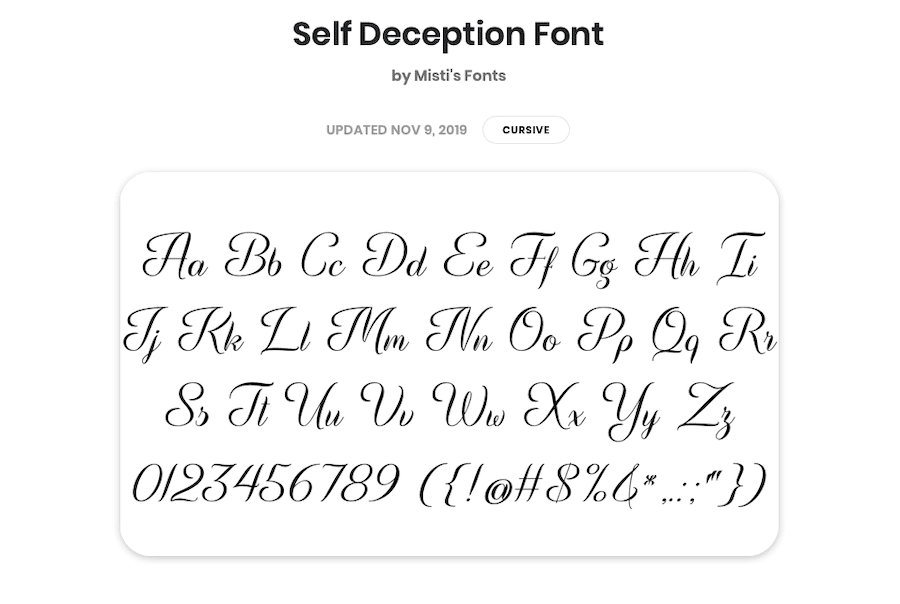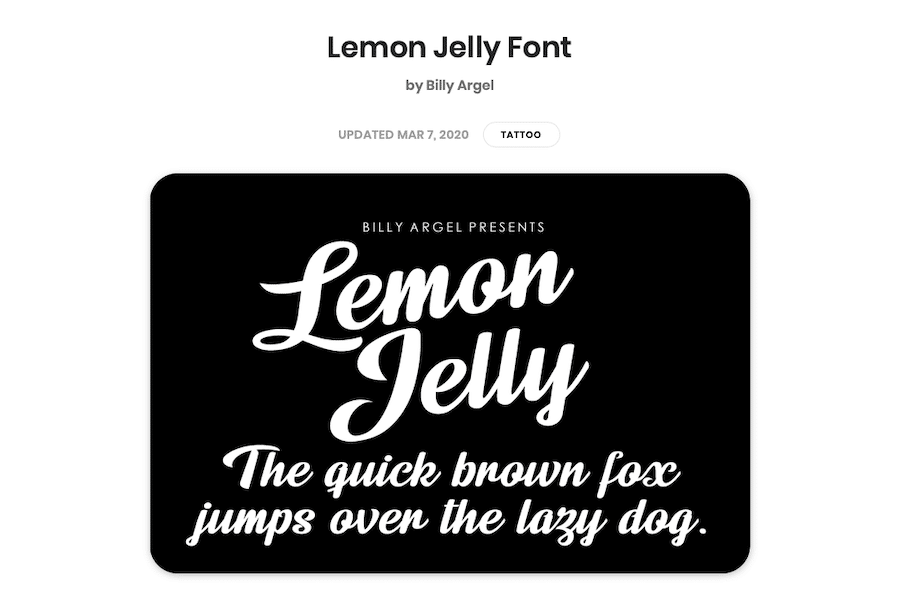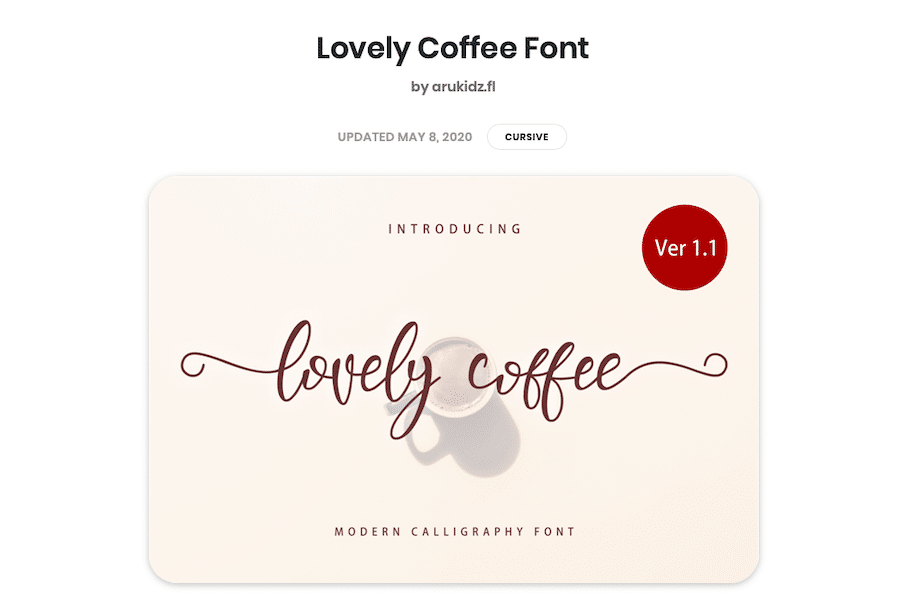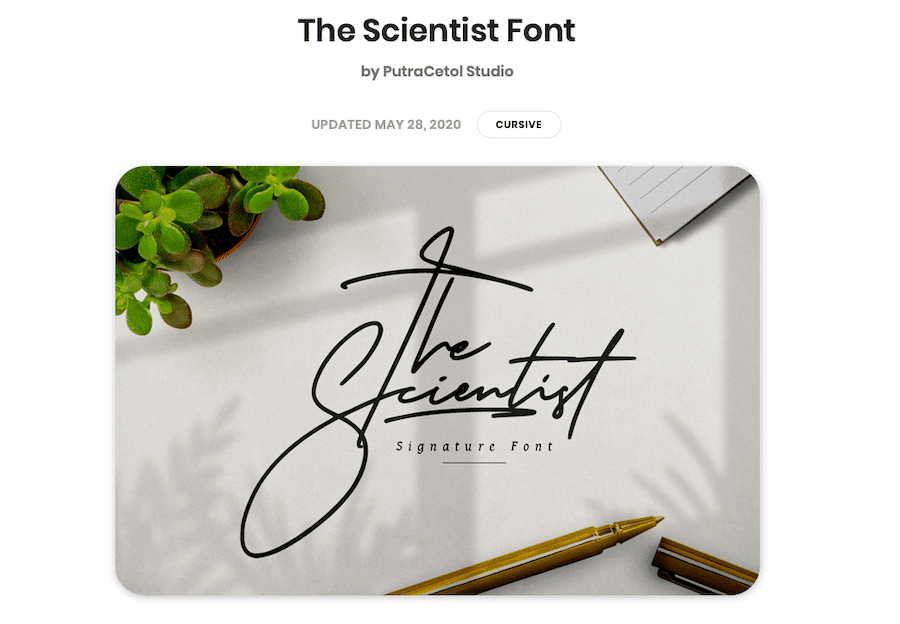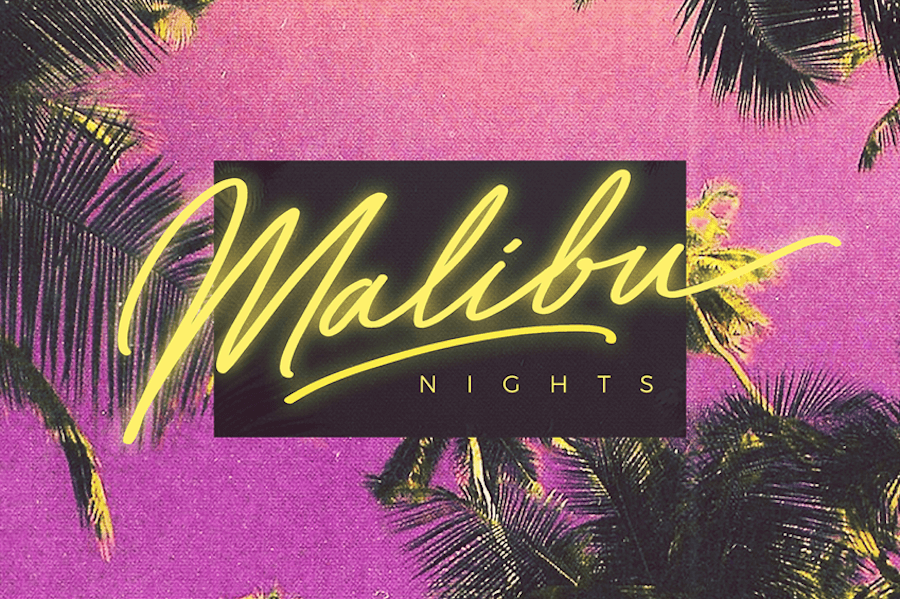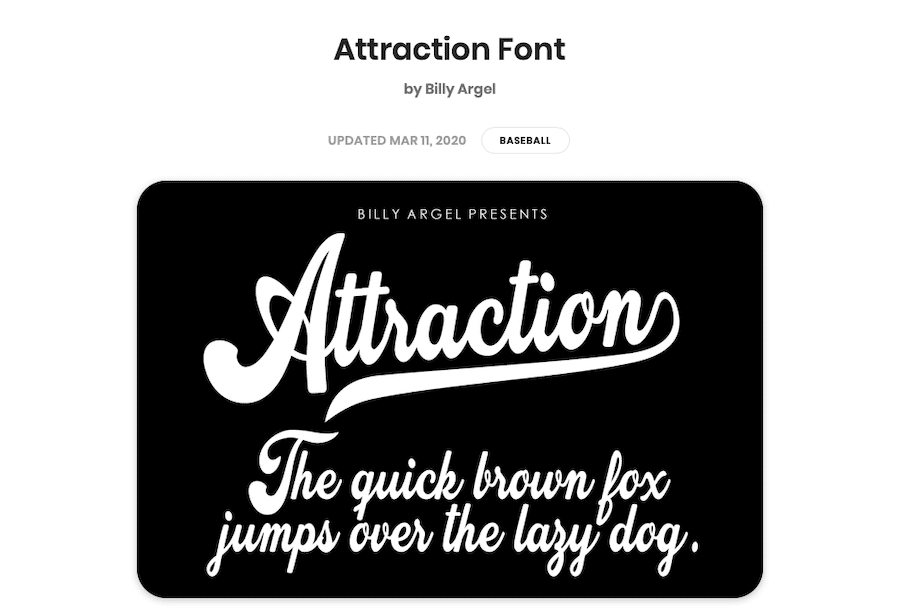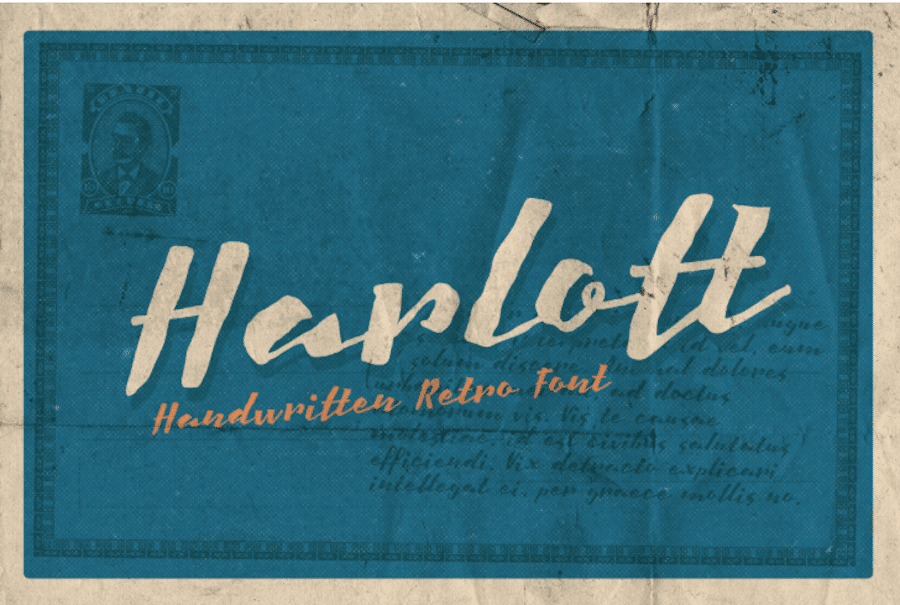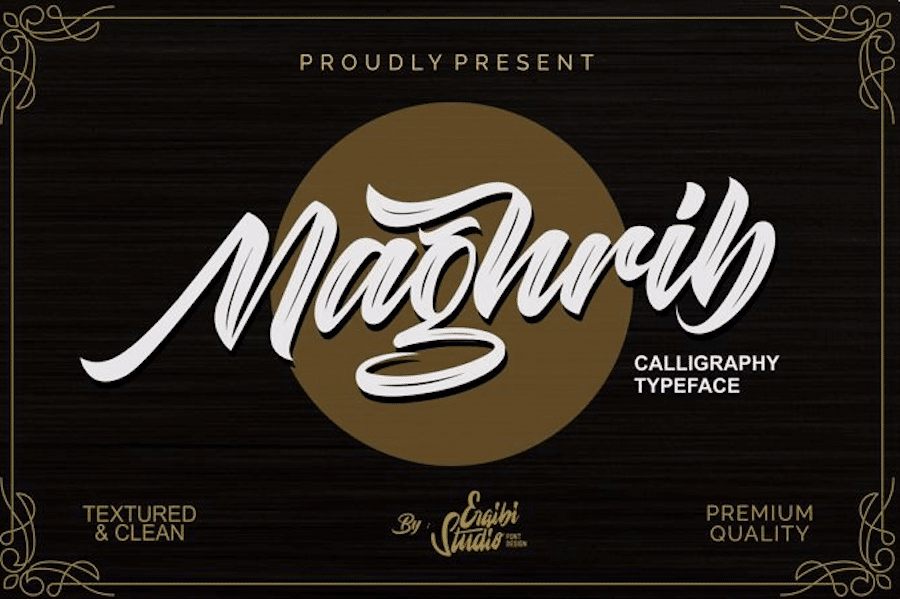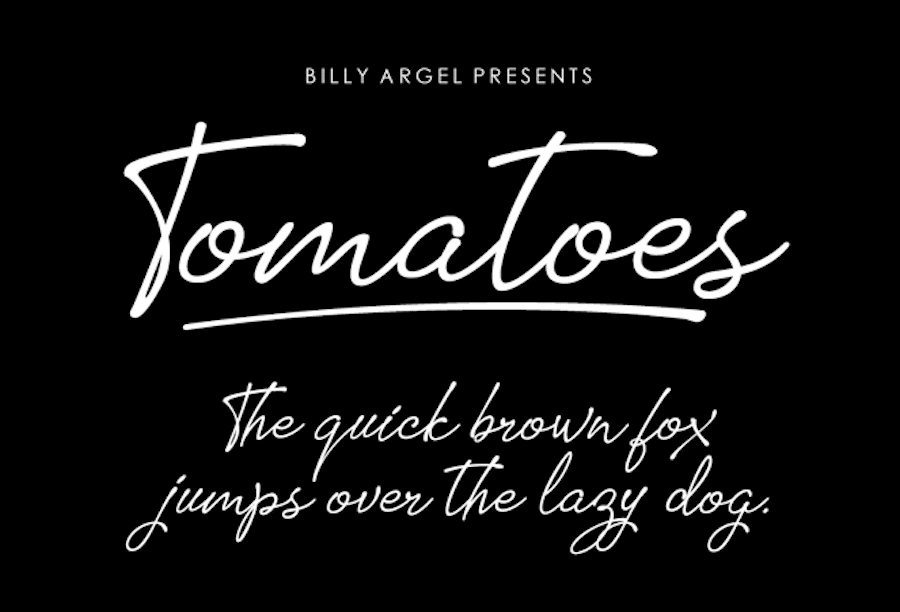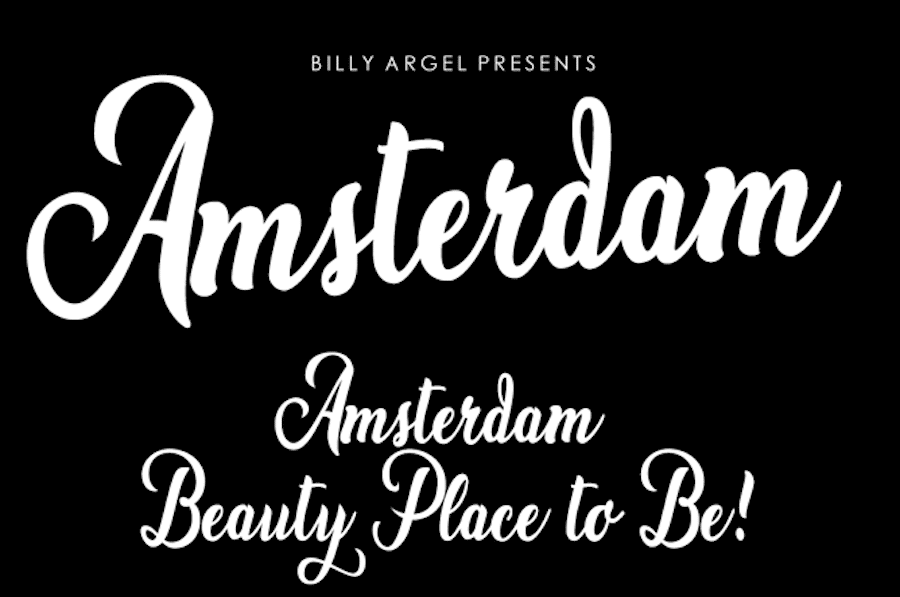
Cursive fonts are a great way to add a unique, elegant touch to your website. They can be used for titles, headings, logos, and other design elements. Cursive fonts are often used to create a more formal, sophisticated look. They can also be used to add a personal touch to a website, making it stand out from the crowd. In this article, we’ll take a look at 33 of the best cursive fonts available for use on the web.
A Brief History of Script Typefaces
Cursive fonts are formally referred to as script typefaces and they’ve existed for several hundred years. We’re talking long before typewriters and word processing here. Rather, script typefaces are inspired by physical cursive handwriting that was used around the 18th century. This type of curlicue, scroll-laden handwriting you’d find in manuscripts written with a quill and ink.
During this period of time, British aristocracy was quite fond of calligraphy, which was made entirely possible by the use of a pointed nib. This elegant lettering was then engraved onto copper plates, which could be used in printing. This same style found a revival in the 1970s, where script flourishes dominated advertising across every niche.
Brush scripts, on the other hand, found their beginnings in Asia. Calligraphy was created using a brush, which resulted in a feathery, delicate style of writing.
When replicated in digital format nowadays, brush script fonts mimic this lightweight style, which carries numerous imperfections and brushstrokes, lending it for use in anything that needs a personal or authentic touch.
The script typefaces as we know them today found in printed materials and online were developed in the 20th century and are often a bit more relaxed than their predecessors. They’re more casual and easier to read than both cursive handwriting and early examples of script typefaces.
Of course, some script fonts are still rather illegible. For instance, Gaelic style script typefaces are blocky yet maintain elements of cursive on some occasions making it difficult to read. Likewise, calligraphy fonts can go heavy on the flourishes at times, obscuring the letters.
Script typefaces have been used in a variety of ways in the modern era. From wedding invitations to ads, script is no stranger to printed materials. And it makes sense why.
The use of a script typeface automatically adds a sense of style and sophistication to what you’re making. It also adds authenticity. Though not written by hand, it imitates cursive handwriting which immediately creates associations in your mind with a personal touch.
When to Use Cursive Fonts
We’ve already mentioned a few potential use cases but let’s take a moment to explore further when and where to use cursive fonts on your website. Of course, any time you want to convey elegance, a cursive font will serve you well. But there are a few specific situations where their use is both expected and encouraged:
• Formal situations: Any time you want to exude class or sophistication, a script font can work well. Wedding invitations are a great example. Certificates, awards, other formal documents, as well as magazine headers all can benefit from their use.
• Official marketing materials: Similar to the above, company letterhead, website headers, and blog post titles may find cursive fonts to be fitting.
• Luxury brands: It makes more sense for a company or brand that deals in the luxury niche to use equally luxurious or sophisticated fonts.
• Headers and titles: Cursive fonts are best used in short bursts. They just aren’t very legible when used for body text. It’s hard on the eyes and also poor on accessibility, so stick to using them for titles instead.